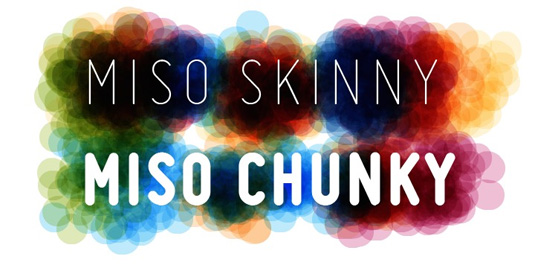
AROUND THE BLOQ: Kinetic typography, free fonts and much more!
The 50 best free fonts for designers
Get your hands on the best free fonts, from retro inspired type to slap-you-in-the-face slab serifs!